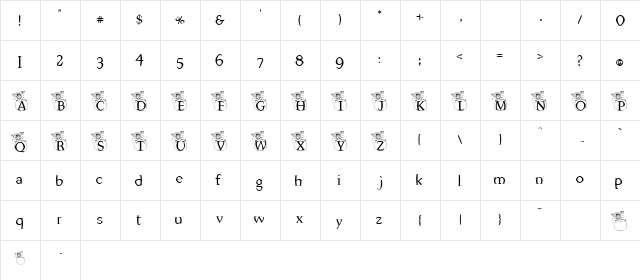
Leprechaun2 Regular
Design Context for Leprechaun2 Typeface
Leprechaun2 is a composed and adaptable typeface that performs quietly and consistently across a wide range of design contexts.